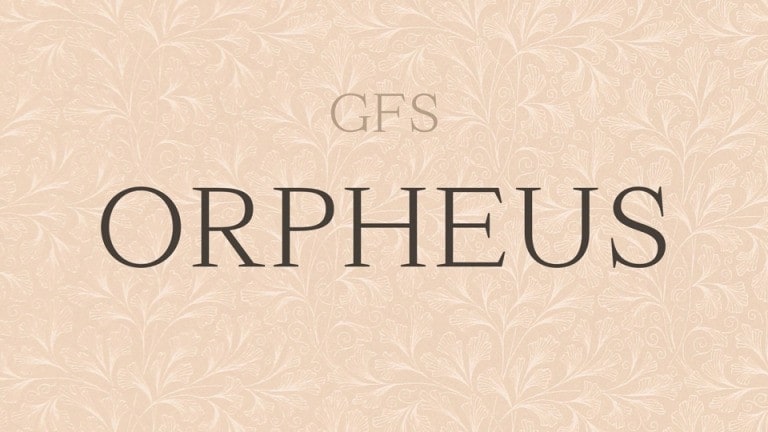
GFS Orpheus Serif Font
GFS Orpheus Serif Font is all caps with stylistic alternate, will satisfy the most projects like banner, advertisement, logo, magazine, fashion, and other. This typeface is an old style serif typeface based on the text found in a school textbook entitled Στοιχειώδης Φυσική Ιστορία, published by the publisher Anestis Konstantinidis in Athens on 1887.
Its design is characterized by an outstanding subtlety and purity in its letterforms. With almost round counters, a low x-height, a fairly high contrast and a nearly horizontal axis, it is a very elegant and legible typeface that works excellently on small text.